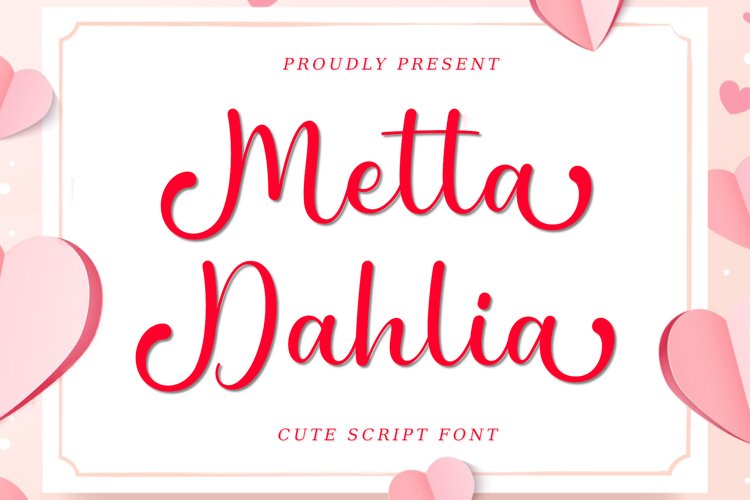
Metta Dahlia
Metta dahlia is designed for display font lovers with a semi-bold size and several beautiful tail alternatives that will make the design look even more elegant